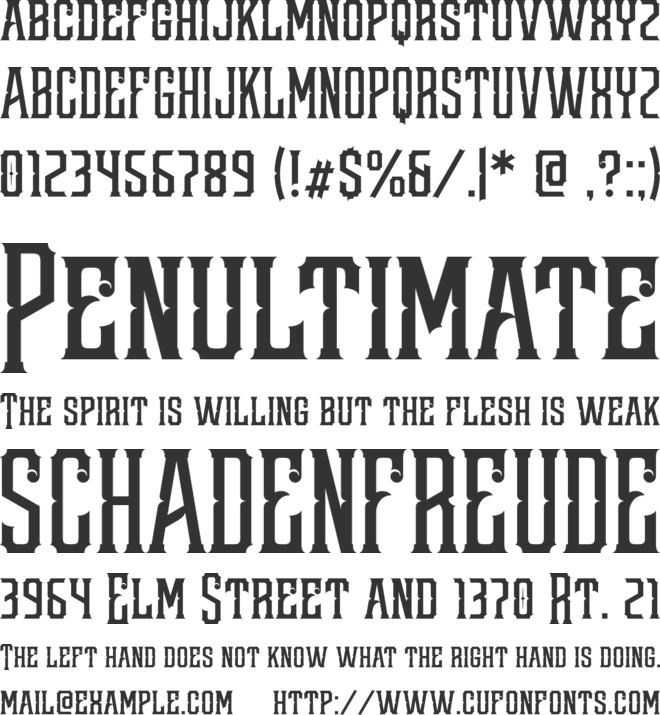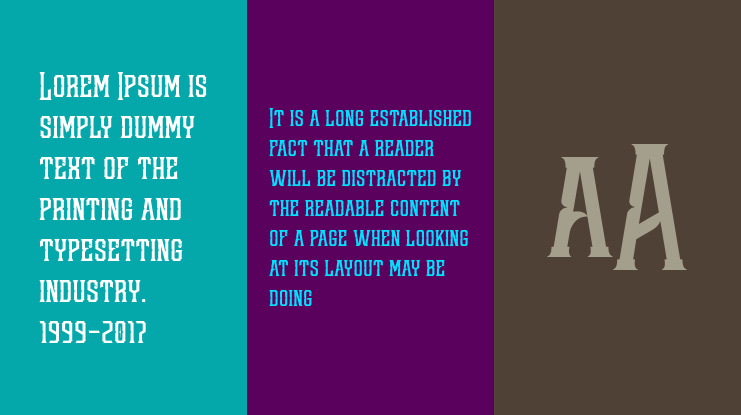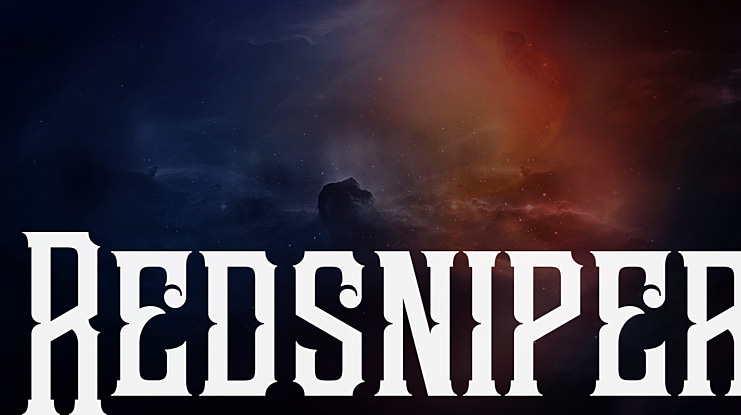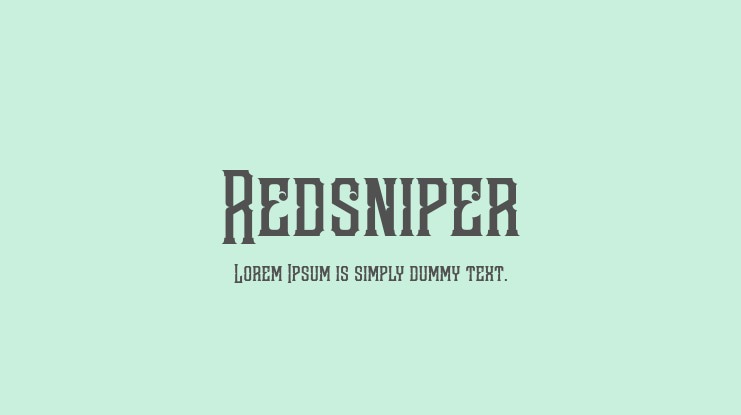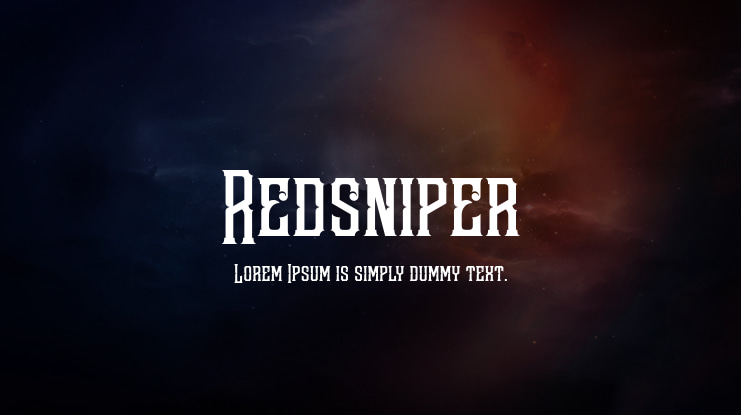
Redsniper Font
Arwan Sutanto
Introducing Redsniper, a brand new font with a vintage look inspired by Victorian typography. Available in three styles with different variations including regular, inline and classic, making it easier to design a variety of typography.